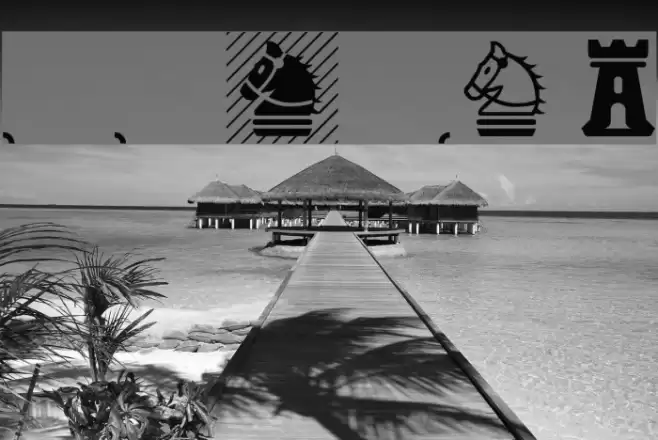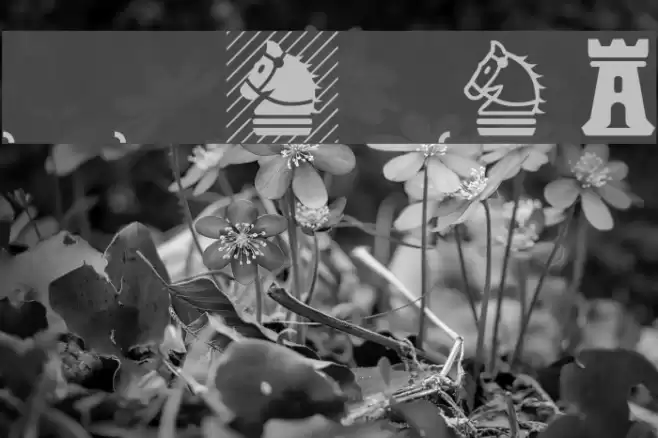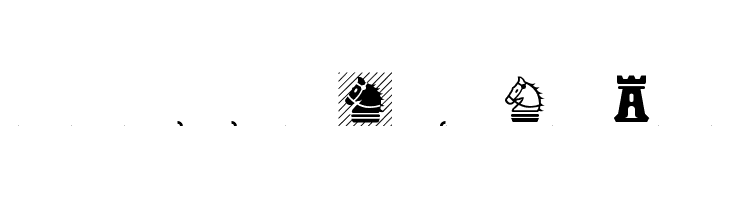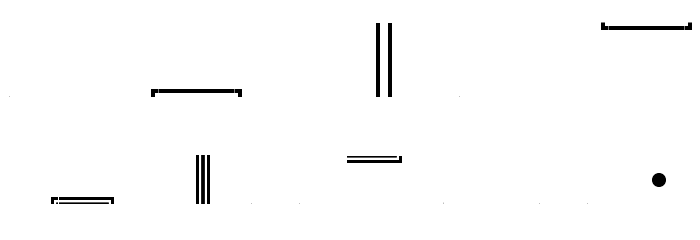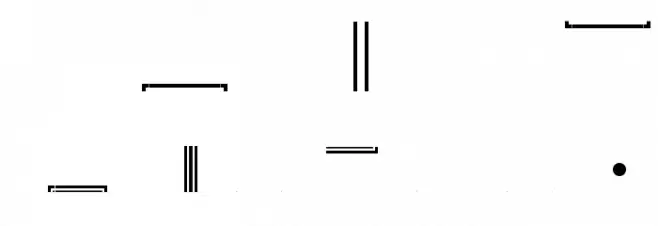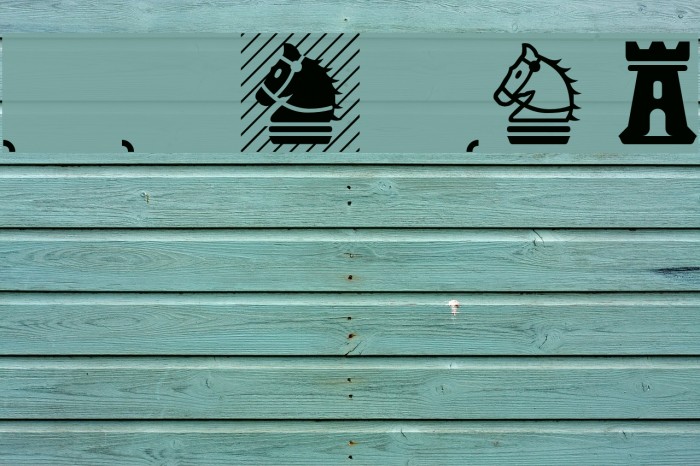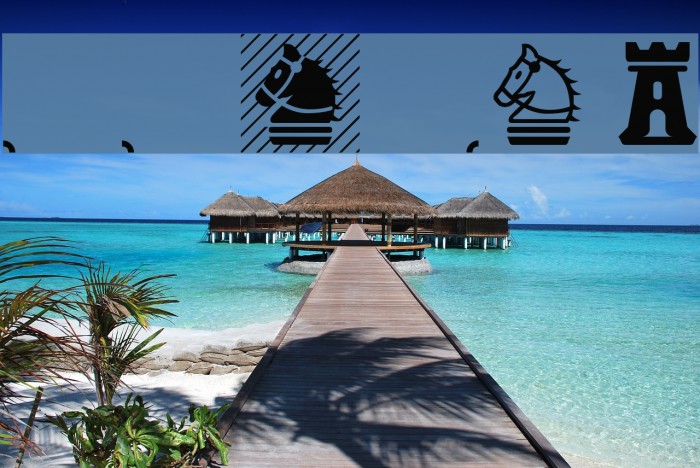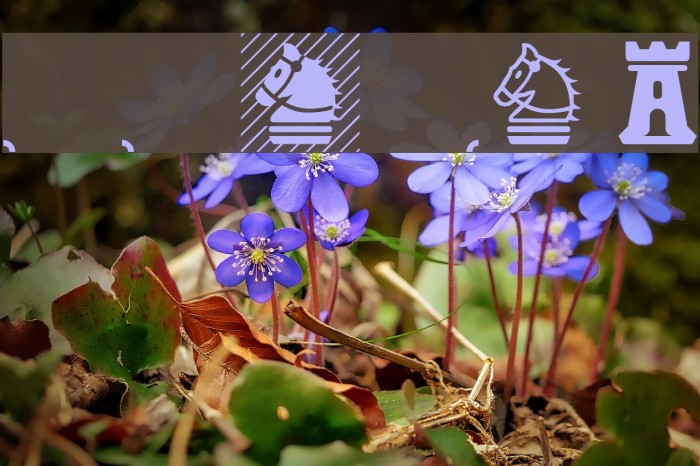
Chess-Magnetic Font
Chess-Magnetic Description
This is not a traditional font but rather a collection of chess piece symbols. Each character represents a different chess piece, such as kings, queens, bishops, knights, rooks, and pawns. The symbols are stylized with a modern and minimalistic design, featuring clean lines and a monochrome color scheme. The pieces are easily recognizable, making them suitable for use in digital chess applications, educational materials, or decorative purposes. The design is consistent across all symbols, maintaining a cohesive look.
A collection of stylized chess piece symbols in a modern, minimalistic design from Dingbats fonts.
- Proposed Projects: Ideal for digital chess games, educational materials, chess-themed designs, or decorative projects.
- Use Case: Logos, Decorative elements, Educational materials